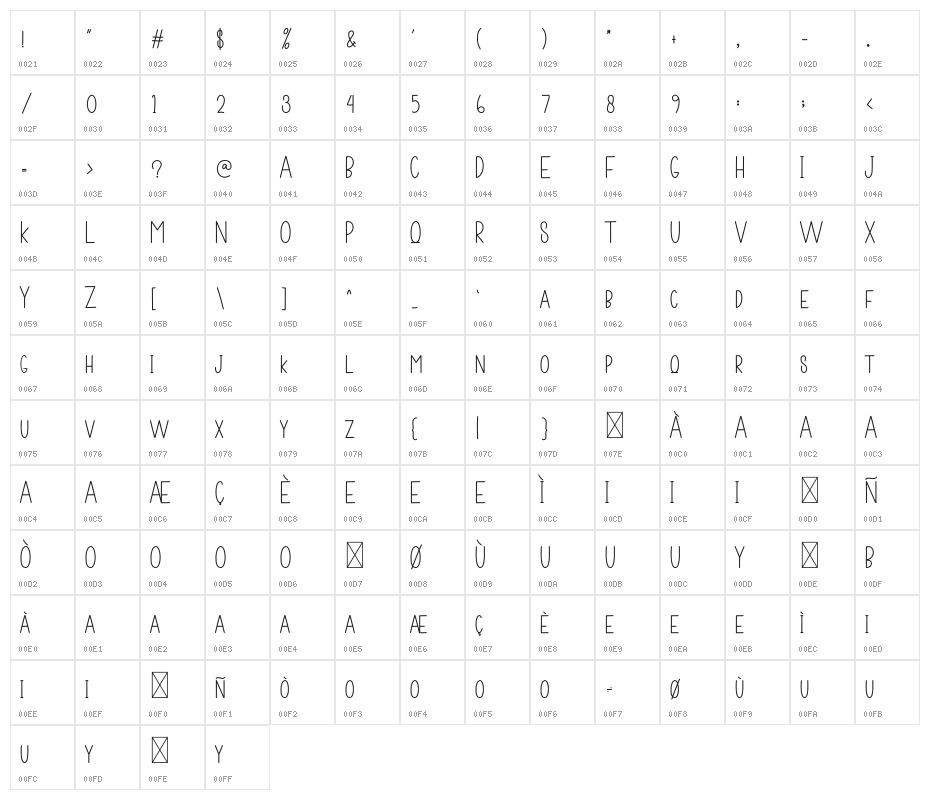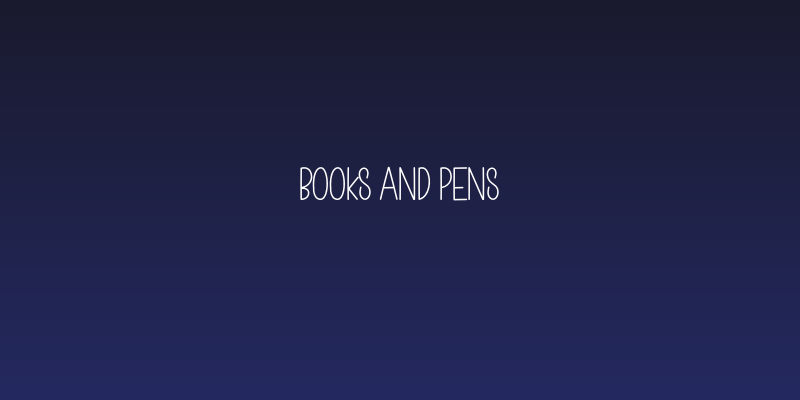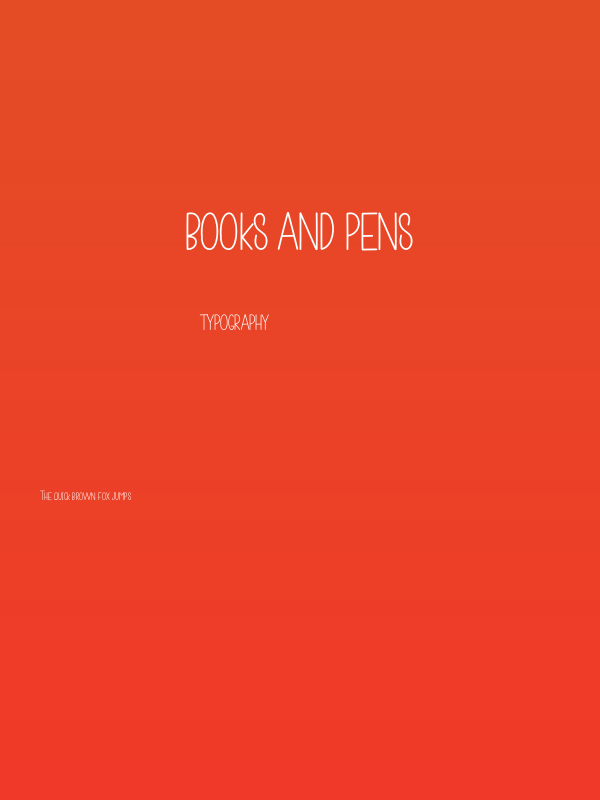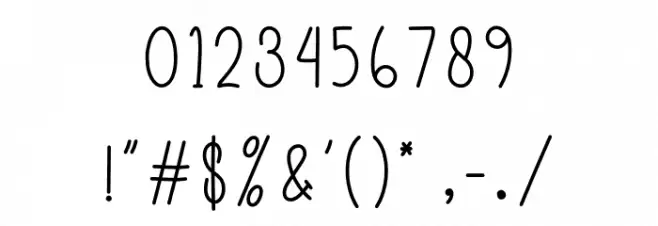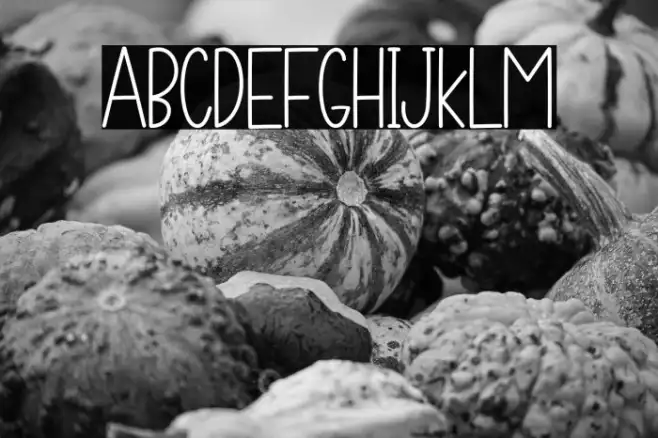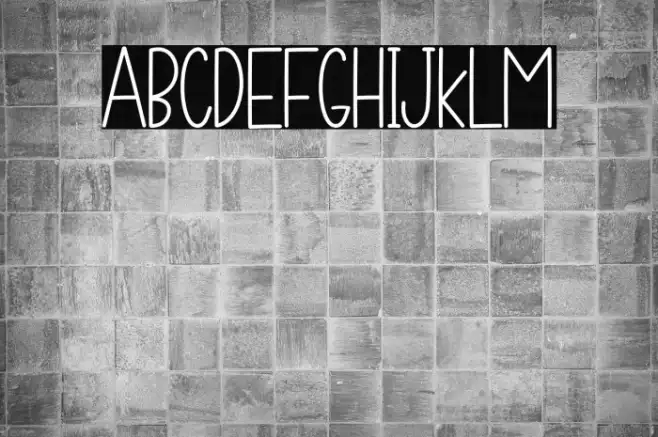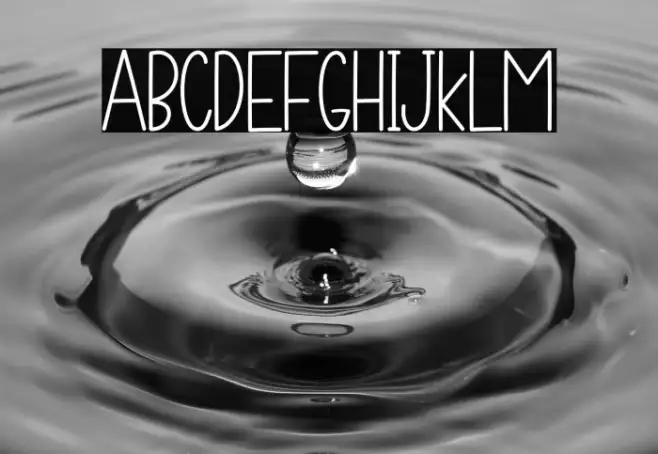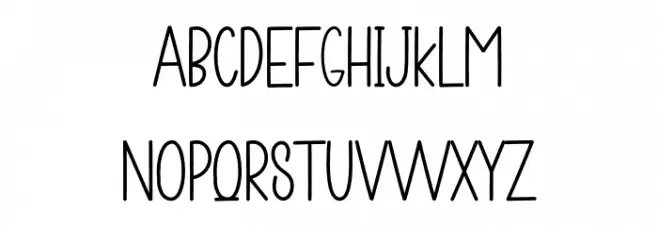
Books And Pens Font
Books And Pens Description
This font features a playful and whimsical style with tall, narrow letters that have a hand-drawn appearance. The strokes are consistent in width, giving it a clean and uniform look. The characters are slightly elongated, adding a touch of elegance while maintaining a casual feel. The font includes both uppercase and lowercase letters, numerals, and a variety of special characters, making it versatile for various design needs. Its simplicity and charm make it suitable for projects that require a friendly and approachable aesthetic.
| Proposed Projects | Ideal for children's books, greeting cards, playful branding, and casual invitations. |